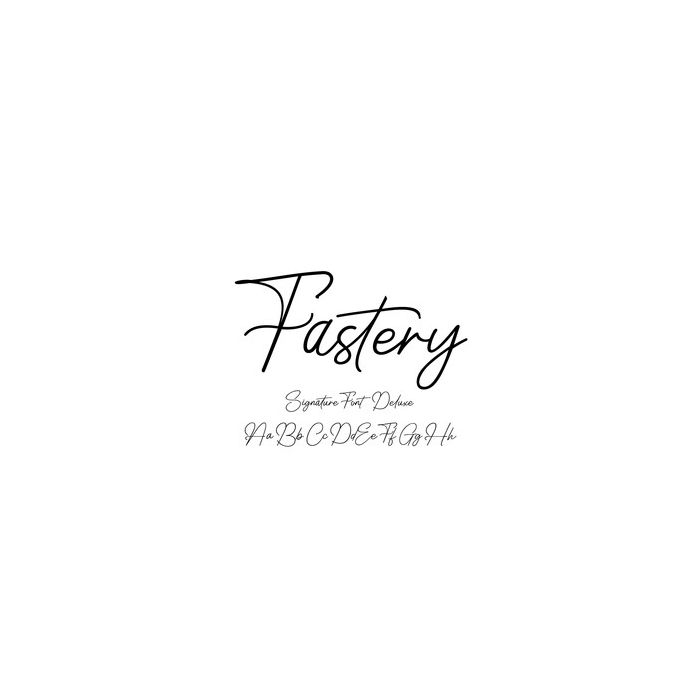
Fastery Signature font with a unique style, original handwriting. Perfect for projects, products, crafts, invitations and personalization. Includes alphabet, numbers, and punctuation.